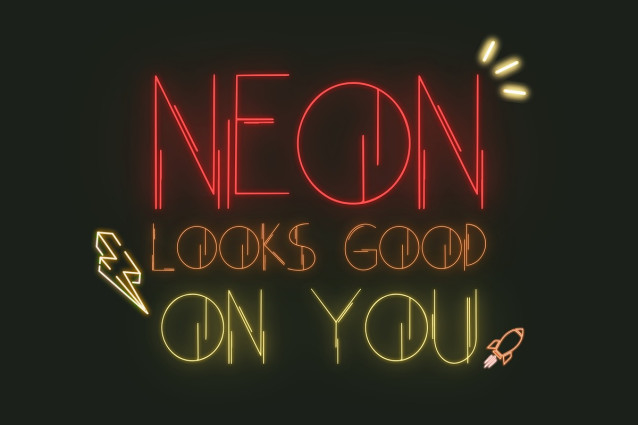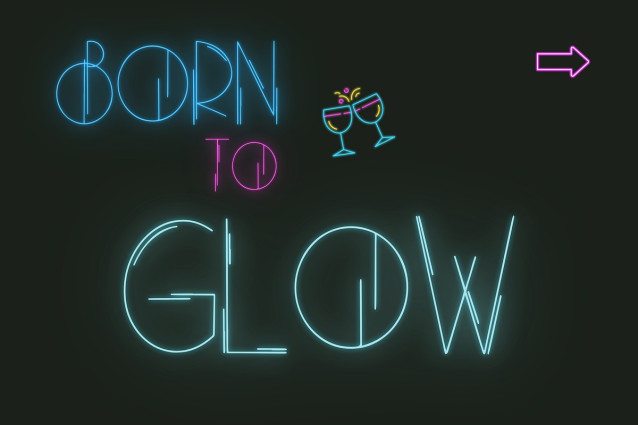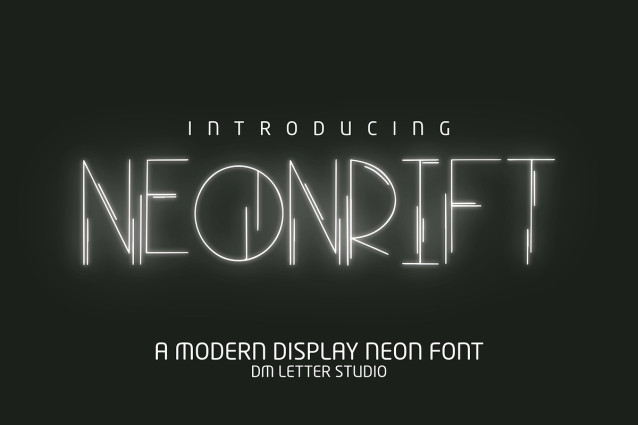
Neonrift Font is a bold display font with a sharp, electric vibe made for designs that need instant attention. It brings a neon sign energy with strong shapes and a confident presence, so your headlines feel modern and high-impact. Because the letterforms stay balanced and open, Neonrift remains readable on posters, thumbnails, and banners, even at smaller sizes. Use it for nightlife branding, music posters, gaming headers, tech promos, product launches, and social graphics. As a result, your designs look futuristic and ready for the spotlight.
First, it installs fast and works smoothly in Canva, Photoshop, and Illustrator. Next, the bold shapes print cleanly for posters, stickers, packaging, and merch. Then layouts build quickly because Neonrift already delivers that “neon” attitude without complex effects. Moreover, it pairs perfectly with a clean sans or a condensed font for supporting text, so everything stays readable. Therefore, you can create consistent promo sets and campaign visuals in minutes.
Fast layouts with the Neonrift font
Start with a short headline in Neonrift and keep it punchy. After that, add details in a simple supporting font for dates, pricing, or subtitles. Because Neonrift looks best with contrast, place it on dark backgrounds or simple gradients. In addition, try adding a glow, outer stroke, or soft shadow to push the neon feel even further. Finally, save palette pairs like electric cyan & black, magenta & deep purple, lime & charcoal, or white & midnight blue to repeat across your designs.